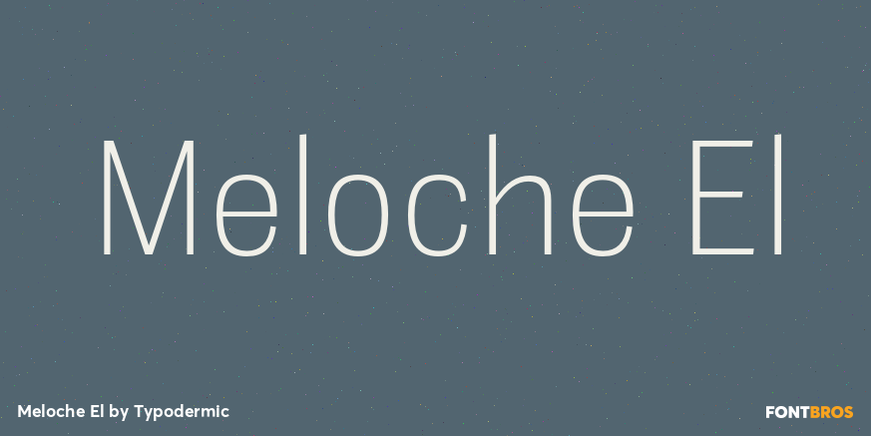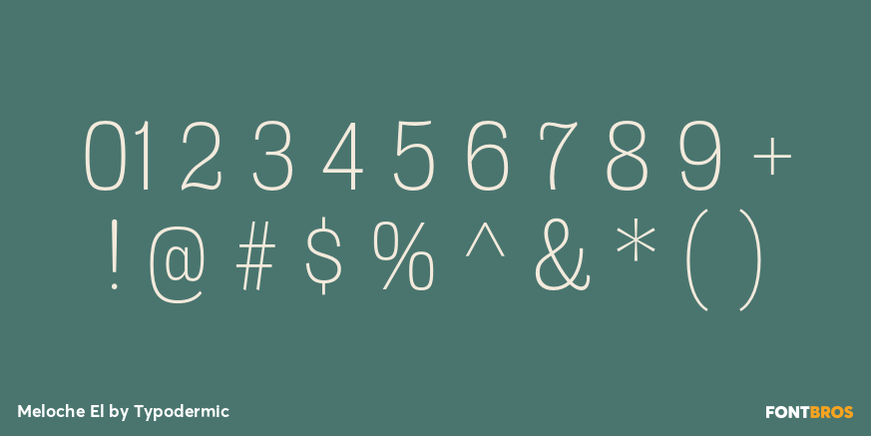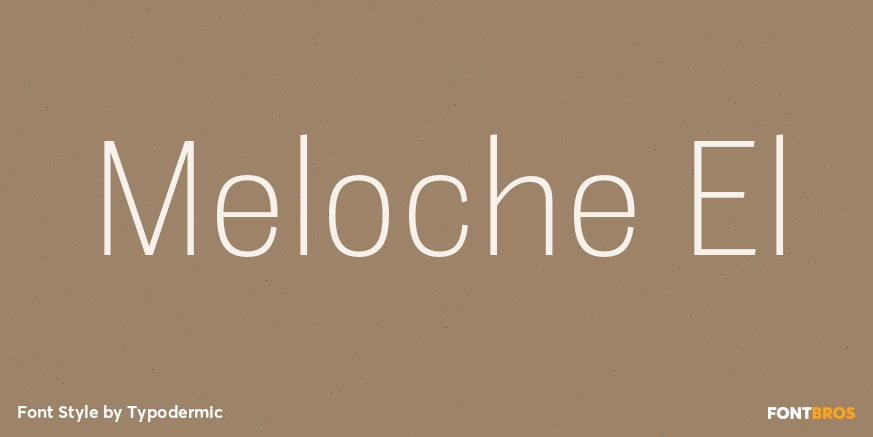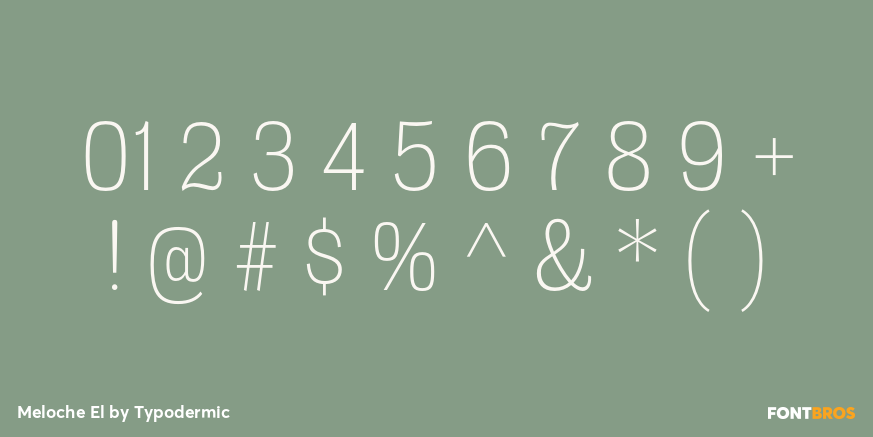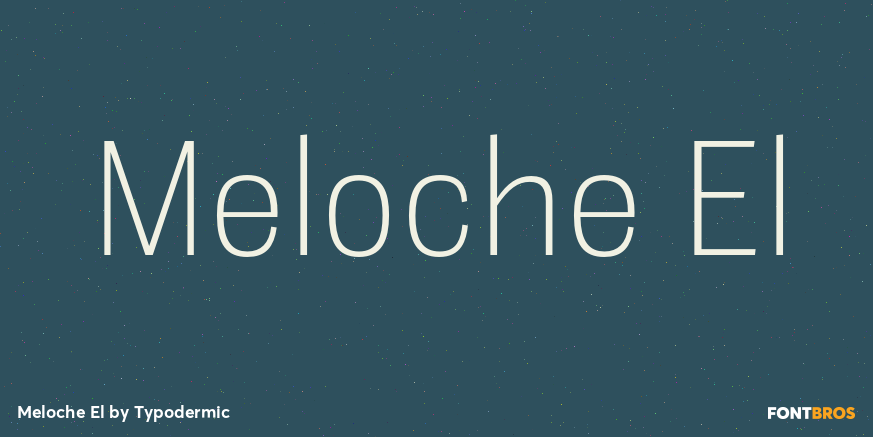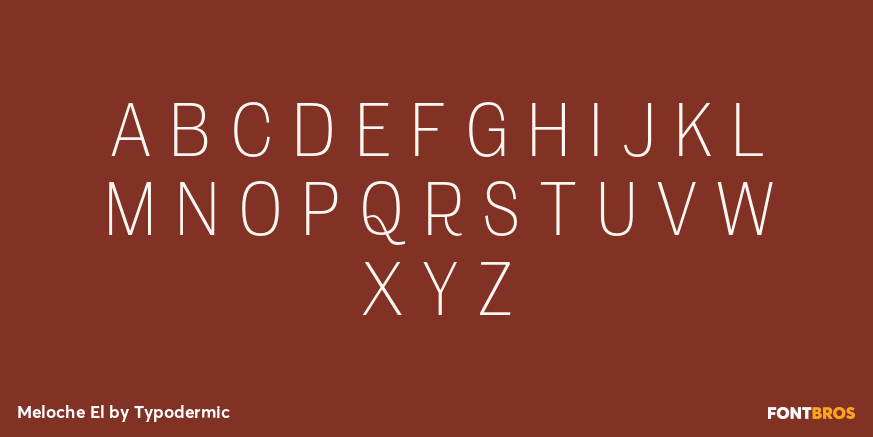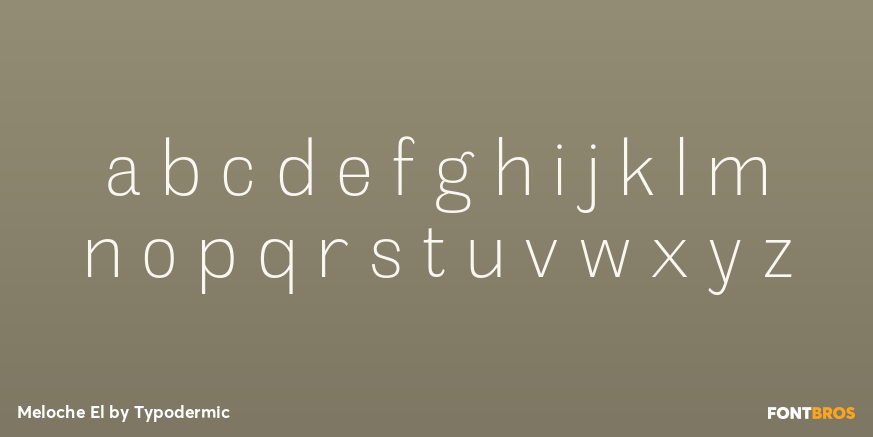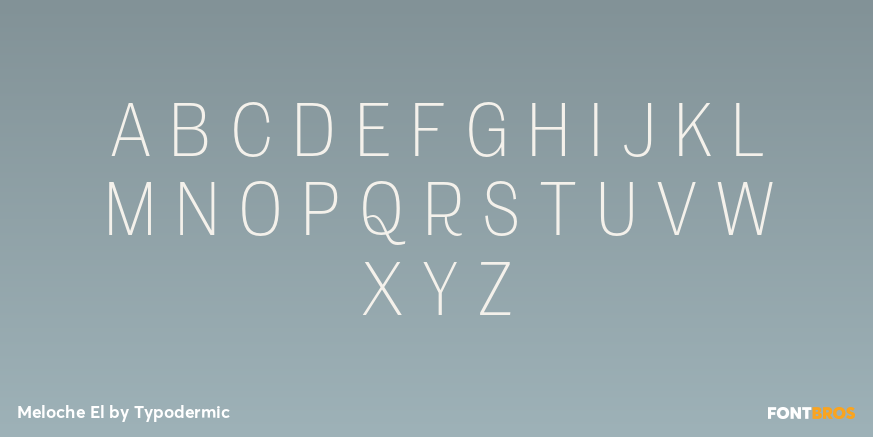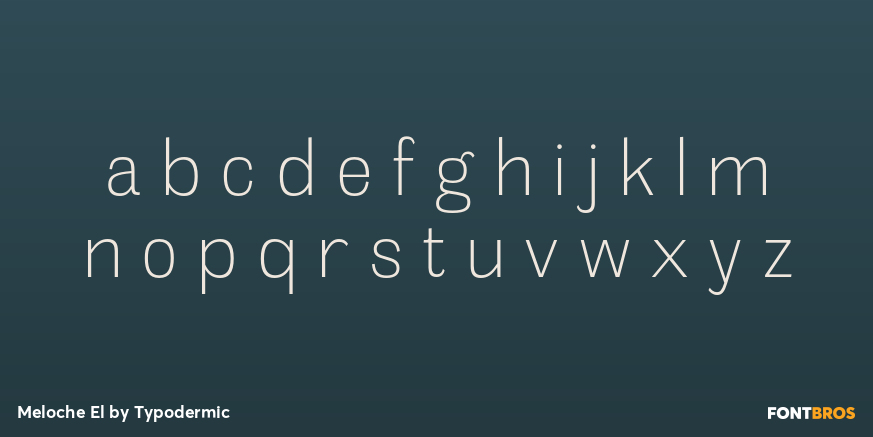
Meloche El
Historic surroundings can make contemporary typography surprisingly difficult. A neutral geometric sans may erase too much of the character already present in the architecture; a traditional serif or revival face can make the identity feel staged or unnecessarily antique. Meloche offers a middle ground: a contemporary sans serif with enough irregularity and historical warmth to sit comfortably beside ornament, patterned surfaces, old photographs, decorative architecture, and materials that already have a story.
That makes Meloche particularly useful for adaptive-reuse hospitality. Boutique hotels in former banks, department stores, civic buildings, grand residences, schools, bathhouses, and older commercial properties often depend on the building’s previous life as part of the guest experience. Meloche can handle property names, restaurant and bar identities, room categories, spa programs, event series, menus, guest guides, and campaign graphics without competing with carved stone, decorative plaster, brass hardware, or patterned tile.
Modern bathhouses and social wellness clubs offer another strong setting. Urban sauna clubs, thermal bathing centers, contrast-therapy venues, membership wellness spaces, restored municipal baths, and hotel hydrothermal facilities combine contemporary health culture with much older traditions. Meloche can carry bathhouse names, sauna and steam-room zones, treatment menus, café identities, membership material, retail products, and seasonal campaigns without relying on Roman inscriptions, Nordic minimalism, or luxury-spa clichés.
Decorative architectural products occupy the same territory at a different scale. Patterned tile, dimensional wallcoverings, decorative hardware, heritage paint collections, bathroom fittings, ornamental lighting, rugs, architectural textiles, and restoration-oriented interior products need typography for collection names, sample books, showroom graphics, specification covers, dealer catalogues, design-fair displays, and launches. Meloche has enough character to live beside richly decorated surfaces without becoming another layer of ornament.
Bath, fragrance, and home-scent products provide a natural extension, especially when they belong to a larger hospitality or wellness system. Refillable hotel toiletries, bath oils, hand wash and lotion, soaps, candles, diffusers, spa products, and fragrance collections can use Meloche for product names, scent families, packaging, amenity programs, and retail displays.
There is a French reading available when the project wants it. The fleur-de-lis ornaments make Meloche an easy fit for Québec, Louisiana, Francophone hospitality, or identities drawing on French decorative traditions. That association is optional rather than defining; Meloche’s broader strength is its ability to live comfortably beside history without pretending to come from it.